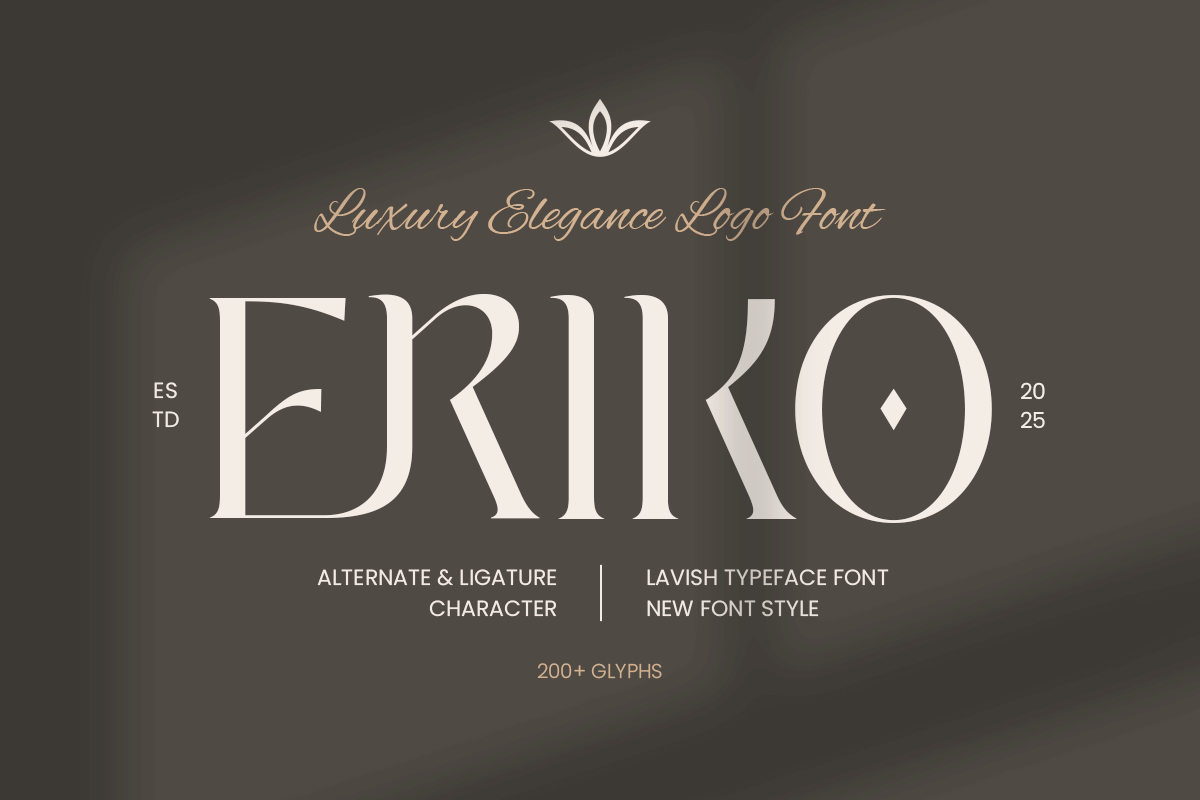
Eriko
-Modern Ligature Serif Logo FontEriko - Modern Ligature Serif Logo Font
ERIKO is a modern luxury logo font designed for premium branding, logos, and elegant creative projects. Its sleek, refined letterforms provide a sophisticated, high-end aesthetic that enhances any design.
Inspired by contemporary elegance and minimalist luxury, ERIKO is ideal for fashion, lifestyle, and luxury brands in both print and digital media.
ERIKO – Modern Luxury Logo Font Features
Elegant and modern character set
Perfect for branding, logos, and premium designs
OpenType features for extra versatility